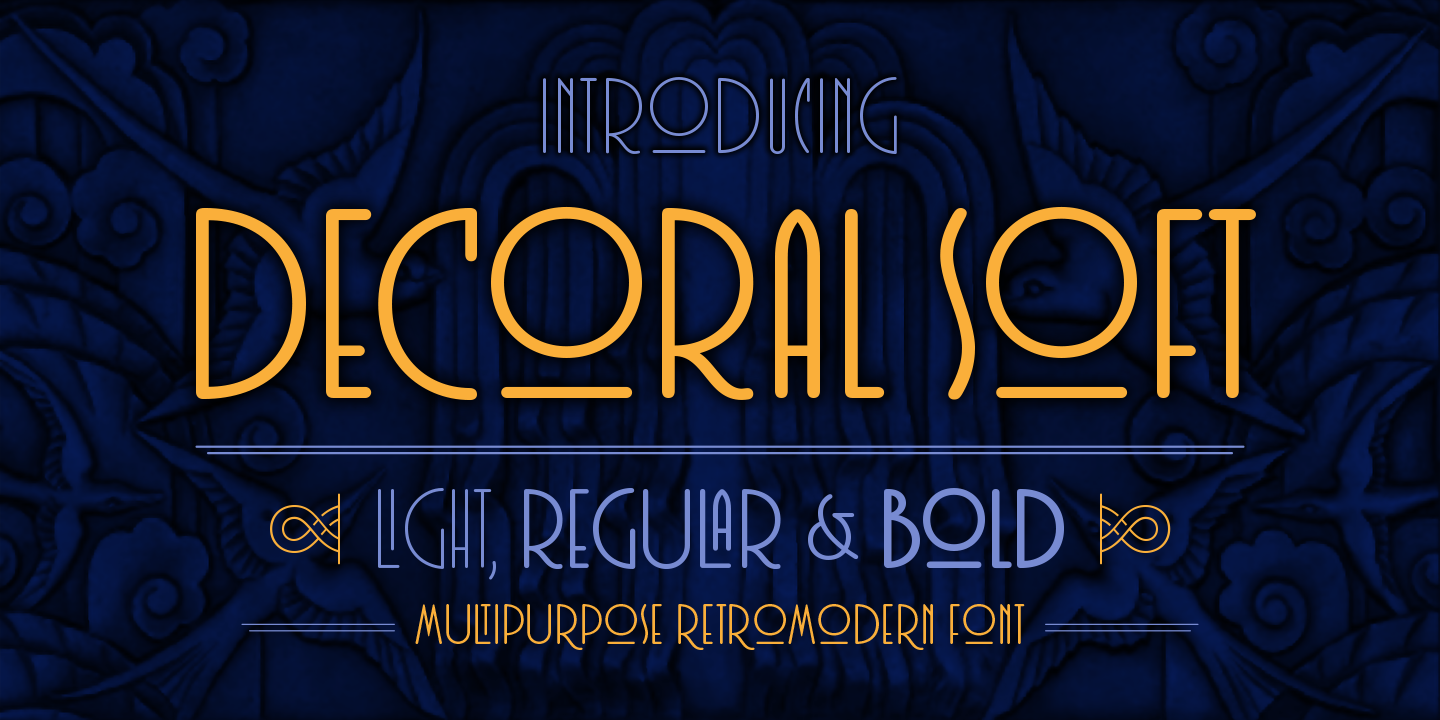
Decoral Soft Font is perfect for interior design studio branding, home décor boutique signage, soft furnishing catalogs, gentle spa treatments, cozy café menus, peaceful wellness centers, artisan craft labels, soothing baby products, comfortable bedding packaging, and tranquil lifestyle magazines.
What makes Decoral Soft Font so exciting is its gentle embodiment of comfort and decorative sophistication through softly rounded letterforms that capture the essence of cozy elegance and the soothing appeal of well-designed living spaces. The font's design philosophy celebrates the art of creating beautiful, comfortable environments that nurture the soul, featuring cushioned curves, harmonious proportions, and decorative details that mirror the plush comfort of luxury textiles, the warm glow of ambient lighting, and the peaceful serenity found in thoughtfully decorated homes where every element contributes to a sense of comfort and visual harmony. Each character wraps viewers in warmth and style, creating a visual language that instantly communicates comfort, elegance, and the inviting charm that makes spaces feel like home and creates lasting impressions of beauty and tranquility.
The Decoral Soft Font family includes comfortable variations: Regular, Bold, Light, Medium, Condensed, Extended, Italic, Plush, and Cozy styles. Each variation maintains the font's characteristic soft elegance while offering different levels of decorative comfort and soothing detail for various interior design and lifestyle brand applications.
When searching for a typeface that embodies the essence of decorative comfort and soft sophistication, Decoral Soft Font Free Download represents the perfect fusion of gentle design with decorative excellence that elevates any project to new levels of comfortable authenticity and soothing appeal.
The gently crafted letterforms of Decoral Soft Font demonstrate superior attention to comfort design principles, featuring soft proportions, soothing spacing, and decorative curves that ensure optimal readability while maintaining the font's distinctive comfortable character. Its versatile design adapts beautifully from intimate product labels to welcoming storefront displays.
Professional designers working on interior design, lifestyle brands, and wellness organizations particularly value the font's ability to convey comfort, decorative sophistication, and gentle elegance. The typeface works exceptionally well for projects targeting home decorators, comfort seekers, and anyone seeking to project soothing positioning and decorative excellence.
The comprehensive OpenType features of Decoral Soft Font include decorative alternates, comfortable ligatures, and specialized soothing characters that enable designers to create authentic comfort typography while maintaining the font's distinctive gentle character throughout all design elements and lifestyle applications.